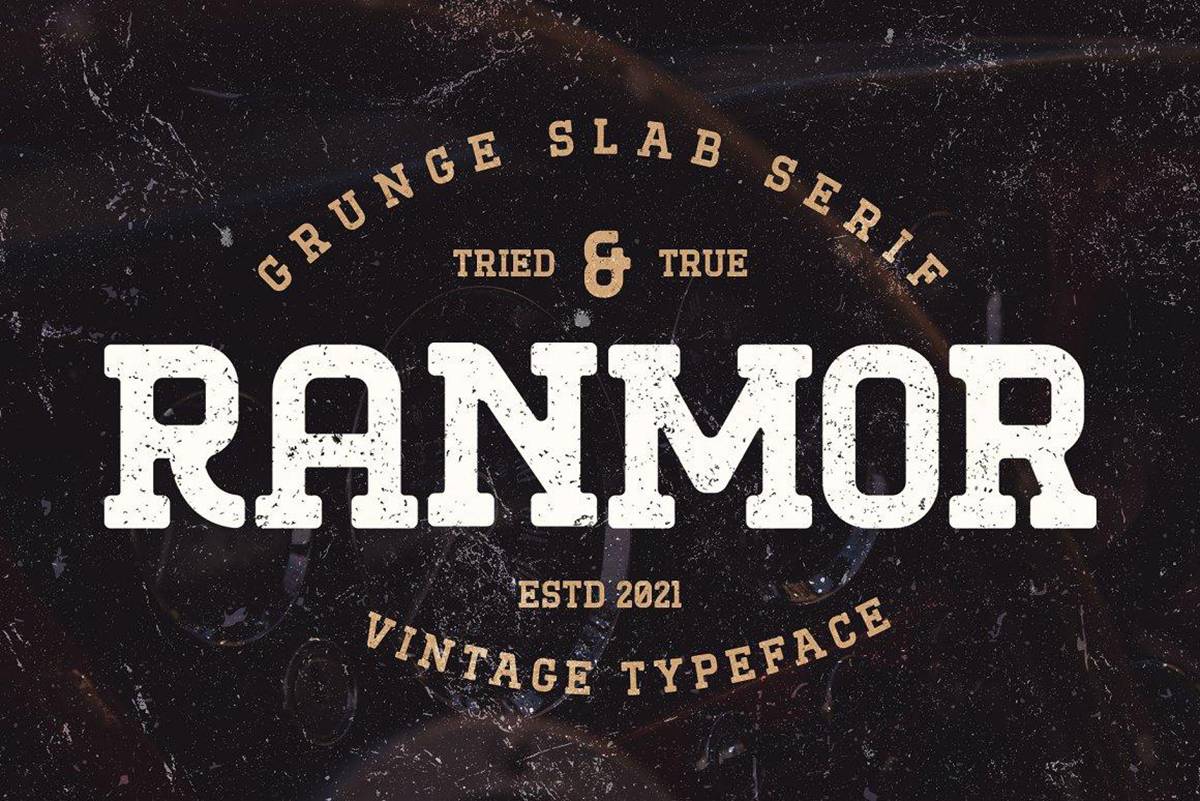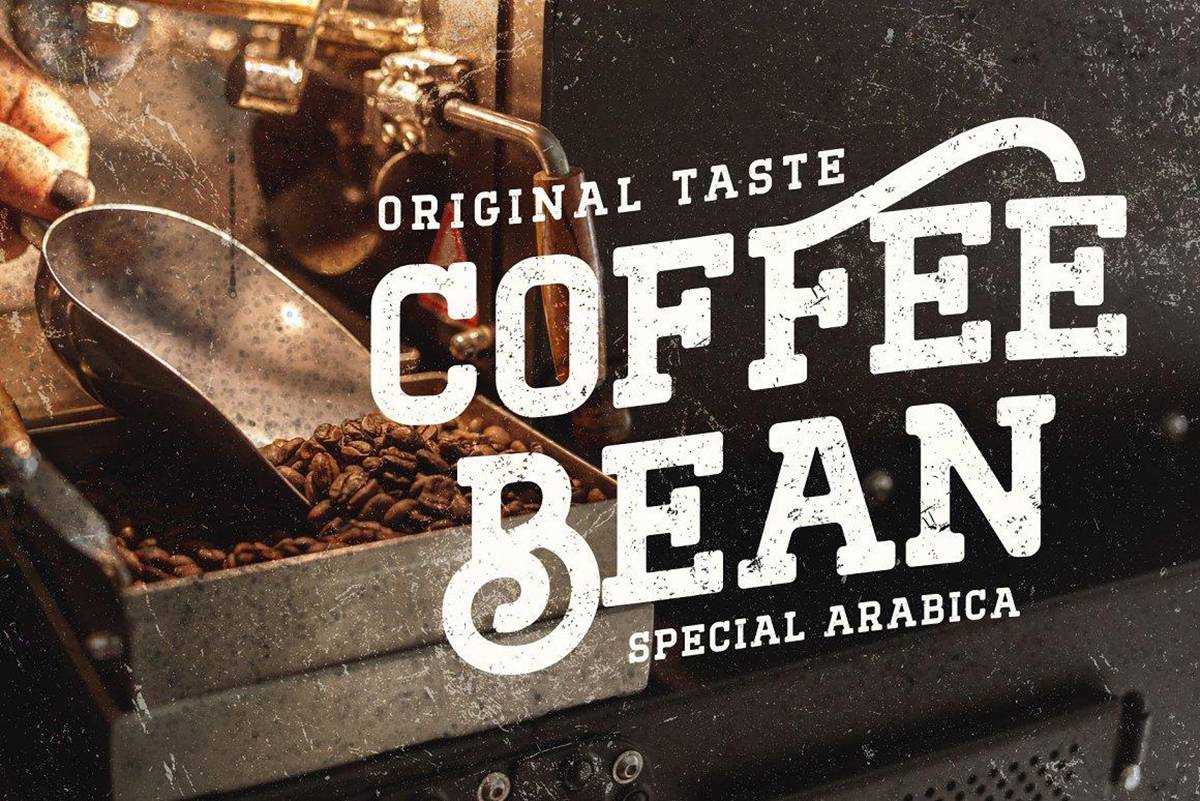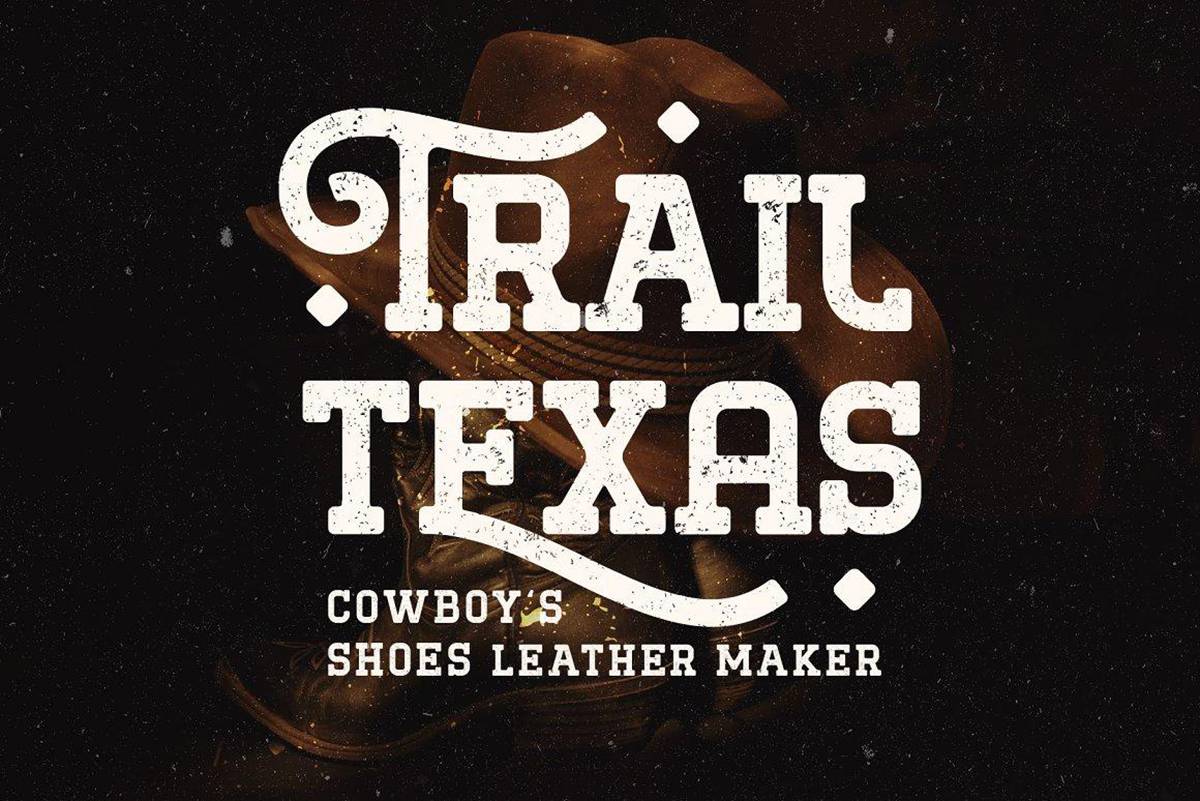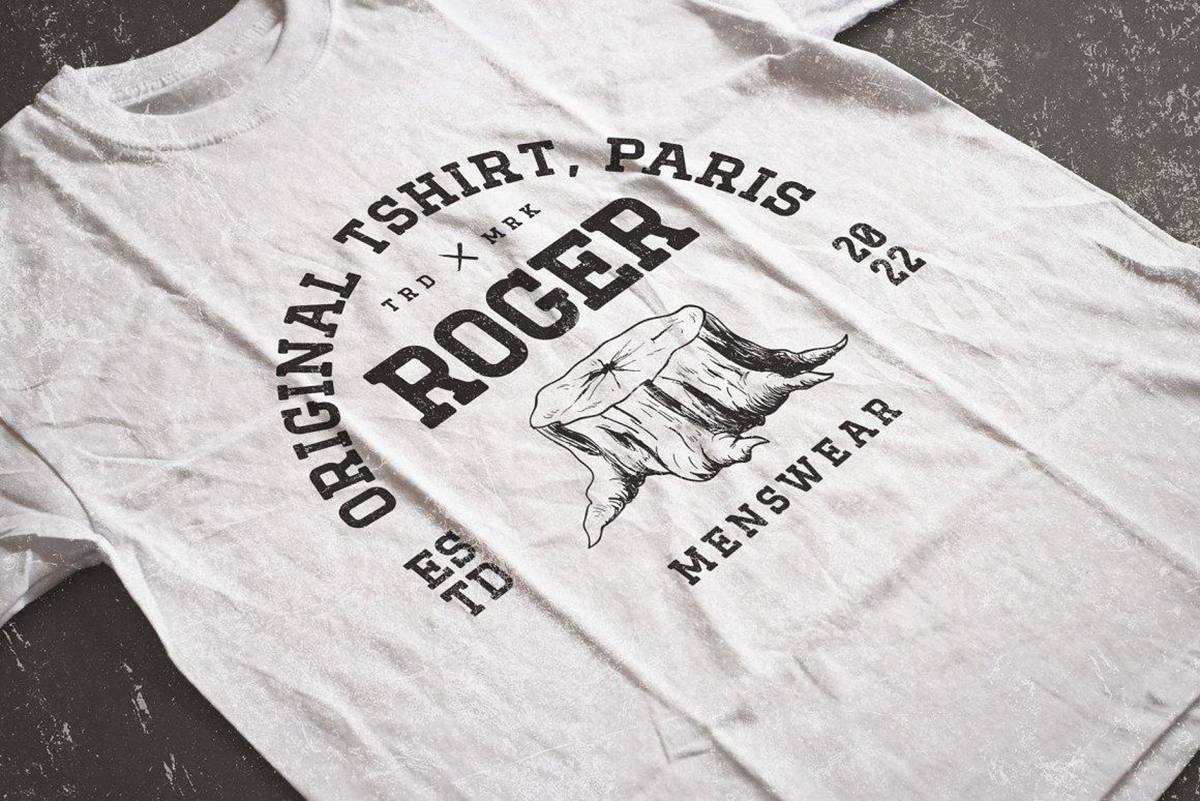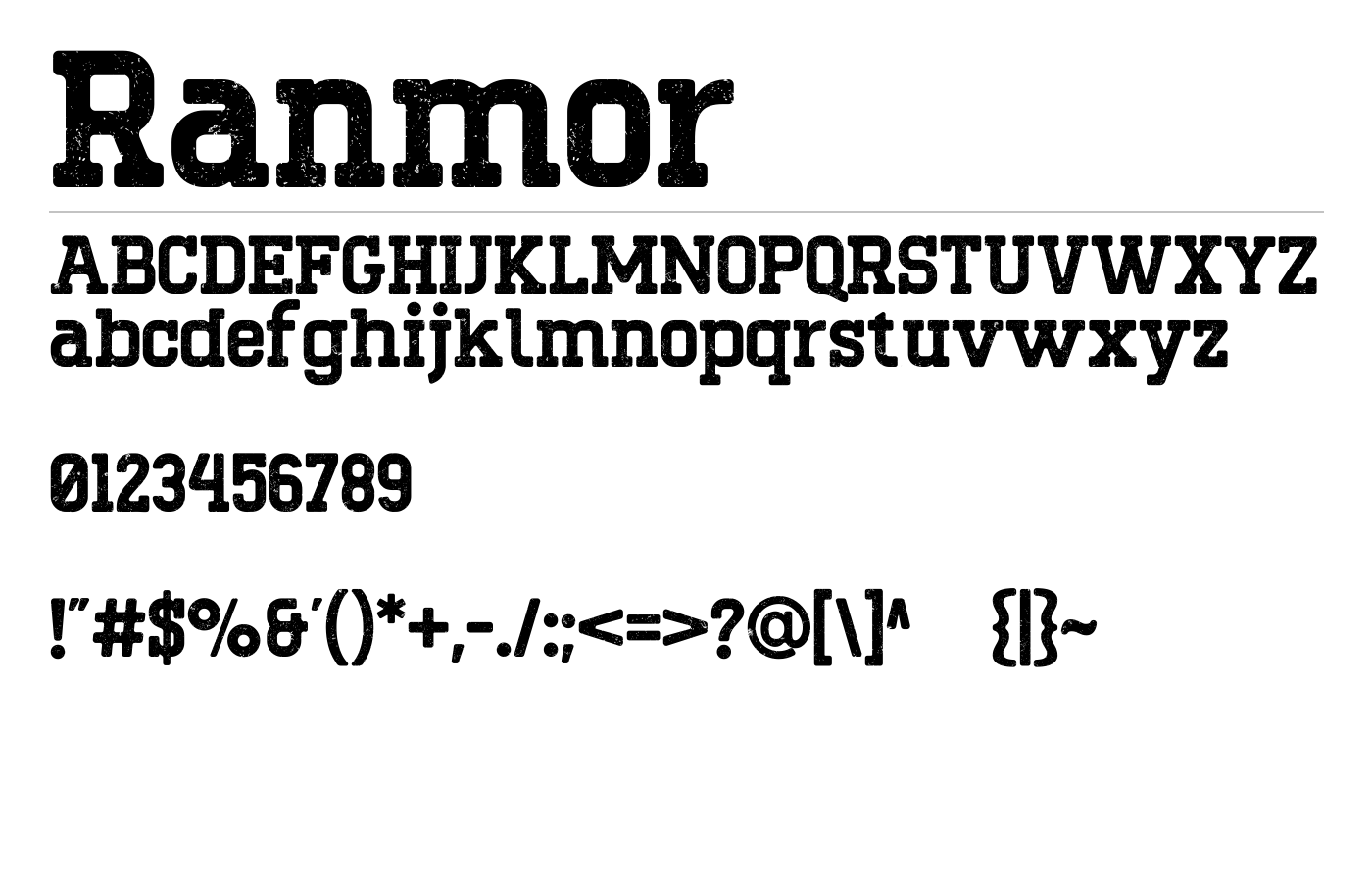
Ranmor is a bold slab serif font with a strong, vintage character highlighted by its rough, textured finish. Its sturdy, condensed letterforms with bracketed serifs and high contrast strokes give it a rugged yet approachable feel, ideal for creating eye-catching headlines and logos with a retro or industrial vibe. This font works well for branding, posters, and editorial designs that want to convey strength and authenticity.
Ranmor Font
About Ranmor Font
| Font family | Ranmor Font |
| Release date | 2021-10-26 |